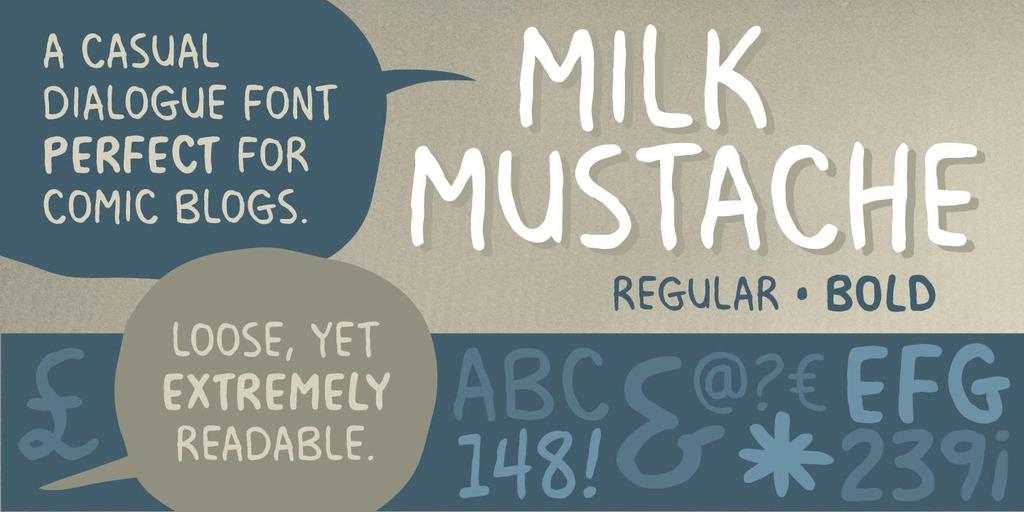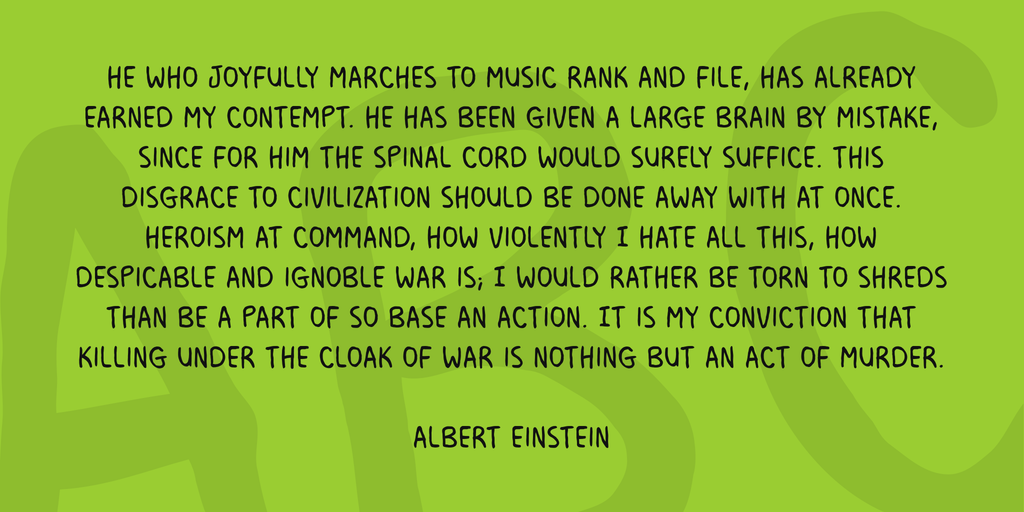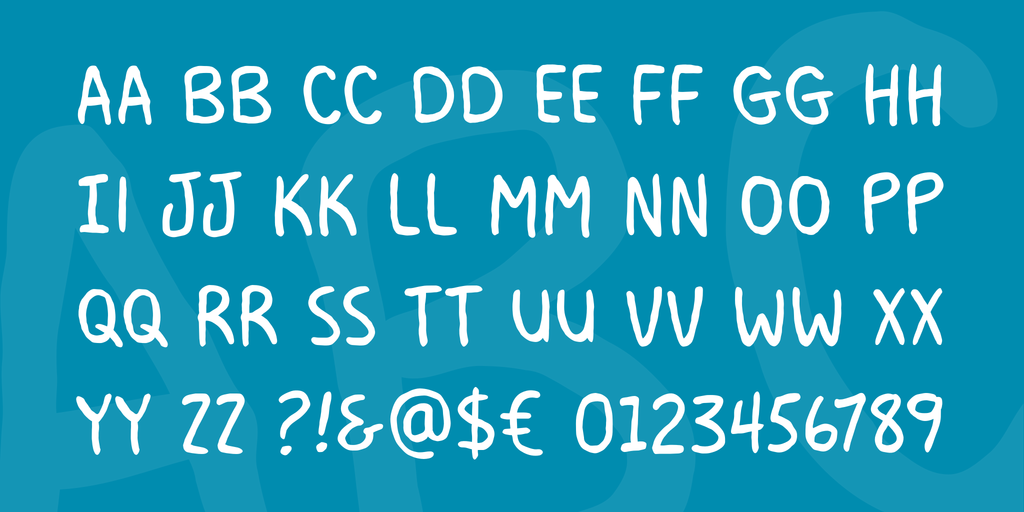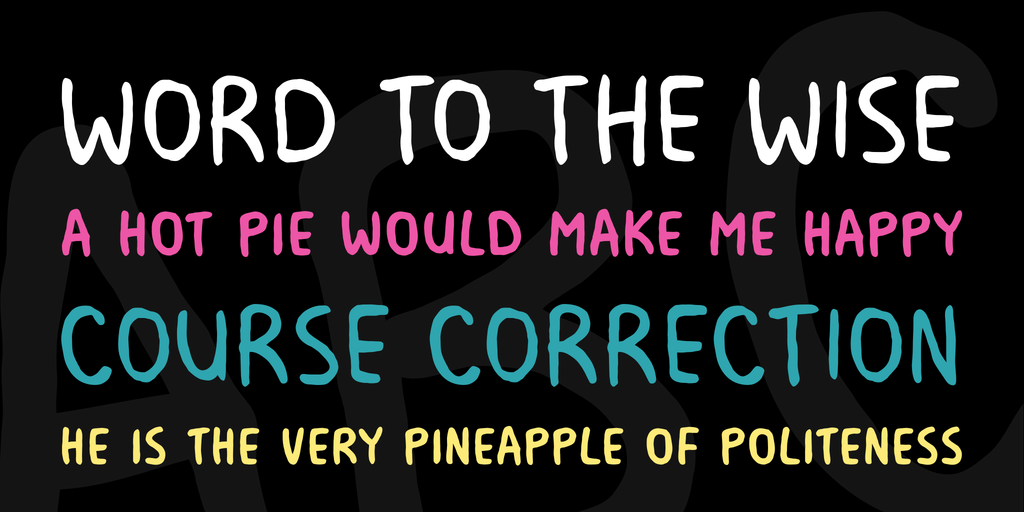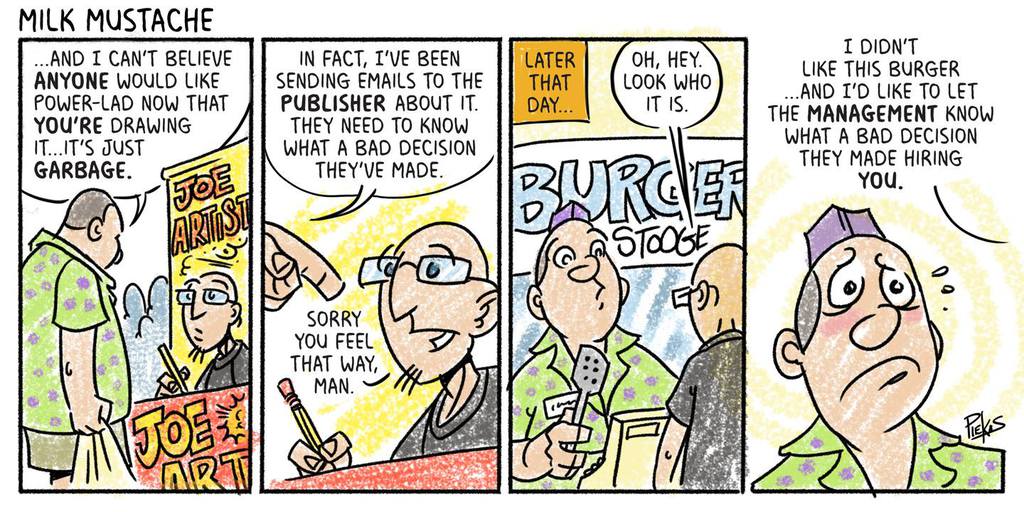
Milk Mustache BB Font Family
Milk Mustache BB Font Family Made by Blambot Comic Fonts
A casual dialogue font perfect for blog-style comics. Loose, but still extremely readable. Comes with Regular and Bold.